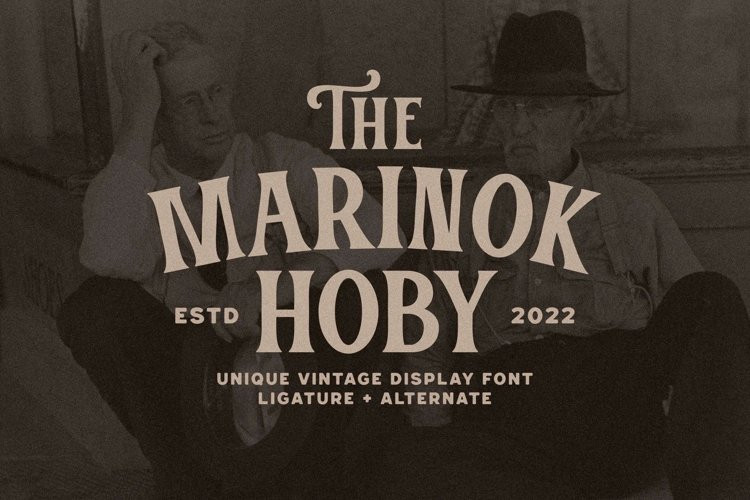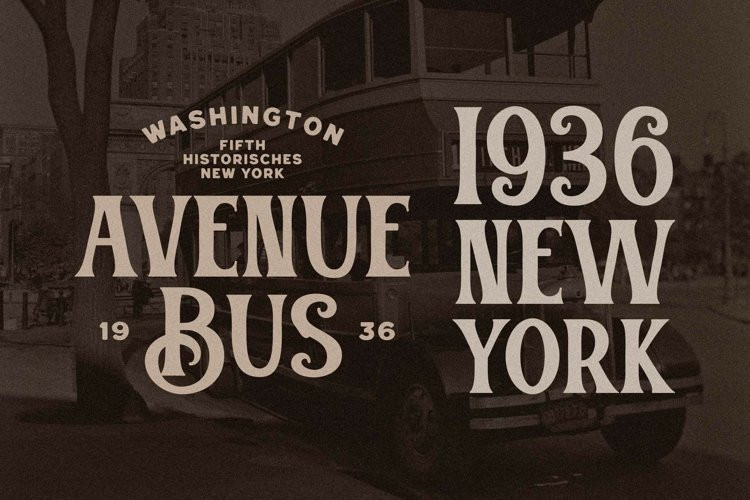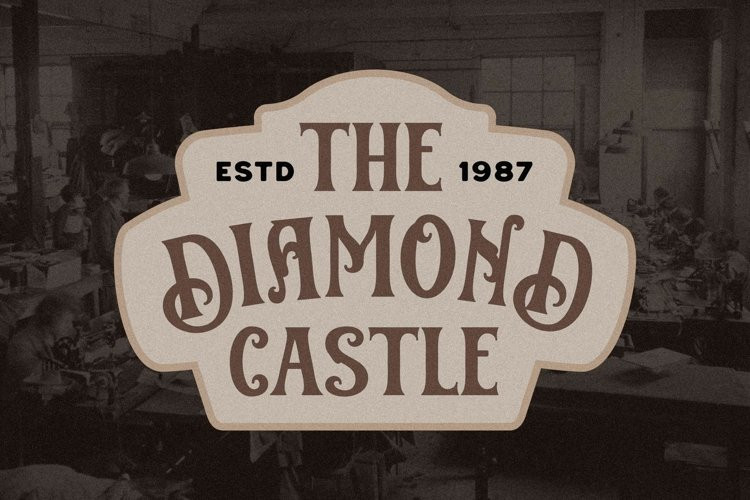
Marinok Hoby Font
Marinok Hoby FontMarinok Hoby is a vintage display font inspired by classic labels and poster. Bring up your vintage passion with this font. So much inspiration as you access with many variations on each characters include alternates, common ligatures to let you customize your designs. Perfect to use for logotype, label, poster, and etc.